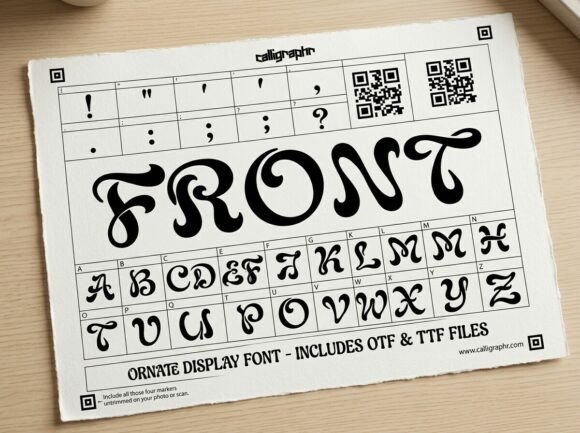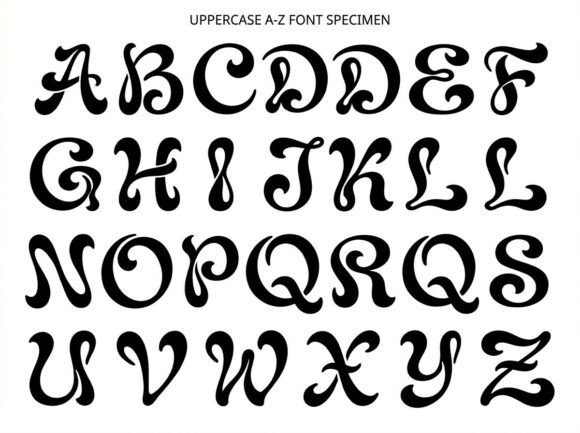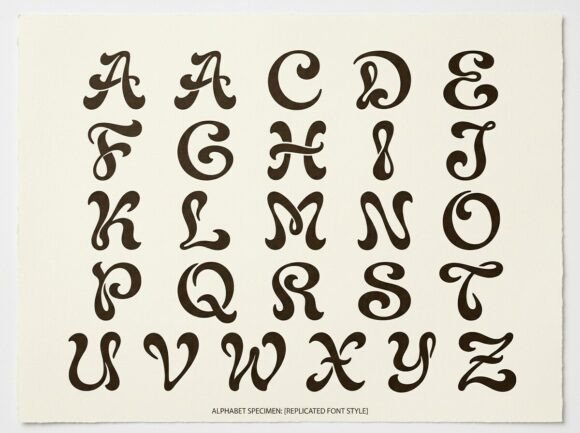
Introducing Front Font: A Stunning Decorative Display Font
Are you tired of using the same old fonts for your designs? Do you want to add a touch of uniqueness and creativity to your projects? Look no further than Front Font, a decorative display font that is sure to turn heads. In this article, we’ll take a closer look at what makes Front Font special and how it can elevate your designs.
Front Font is a stunning decorative display font designed to be the center of attention. With its unique artistic elements and strong visual personality, this font is perfect for creators who want to break away from the ordinary. Whether you’re working on a bold headline, artistic logo, or creative packaging, Front Font is versatile enough to make a lasting impression while maintaining a professional and polished finish.
⚠️ IMPORTANT NOTE BEFORE PURCHASE: Front Font is an ALL-CAPS (Uppercase Only) display typeface. This means that it does not include lowercase letters. It is specifically designed for high-impact headlines, logos, and decorative initials where every letter is a work of art.
Front Font is perfect for designers and crafters who want to add a touch of elegance and sophistication to their projects. With its unique and artistic elements, this font is sure to make your designs stand out from the crowd. Here are just a few ways you can use Front Font:
- Bold Headlines: Use Front Font to create eye-catching headlines that grab attention.
- Artistic Logos: Create stunning logos that showcase your brand’s personality and style.
- Creative Packaging: Add a touch of elegance and sophistication to your packaging designs.
Tips for Using Front Font
Here are a few tips for getting the most out of Front Font:
- Use it sparingly: Front Font is a bold and attention-grabbing font, so use it sparingly to avoid overwhelming your design.
- Experiment with colors: Try out different colors and textures to add depth and interest to your design.
- Pair it with other fonts: Front Font pairs well with clean and simple fonts, so try pairing it with a sans-serif font for a striking contrast.
In conclusion, Front Font is a stunning decorative display font that is sure to elevate your designs. With its unique artistic elements and strong visual personality, this font is perfect for creators who want to break away from the ordinary. Whether you’re a designer or crafter, Front Font is a versatile and powerful tool that can help you create stunning designs that demand attention.
Get Ready to Make a Statement